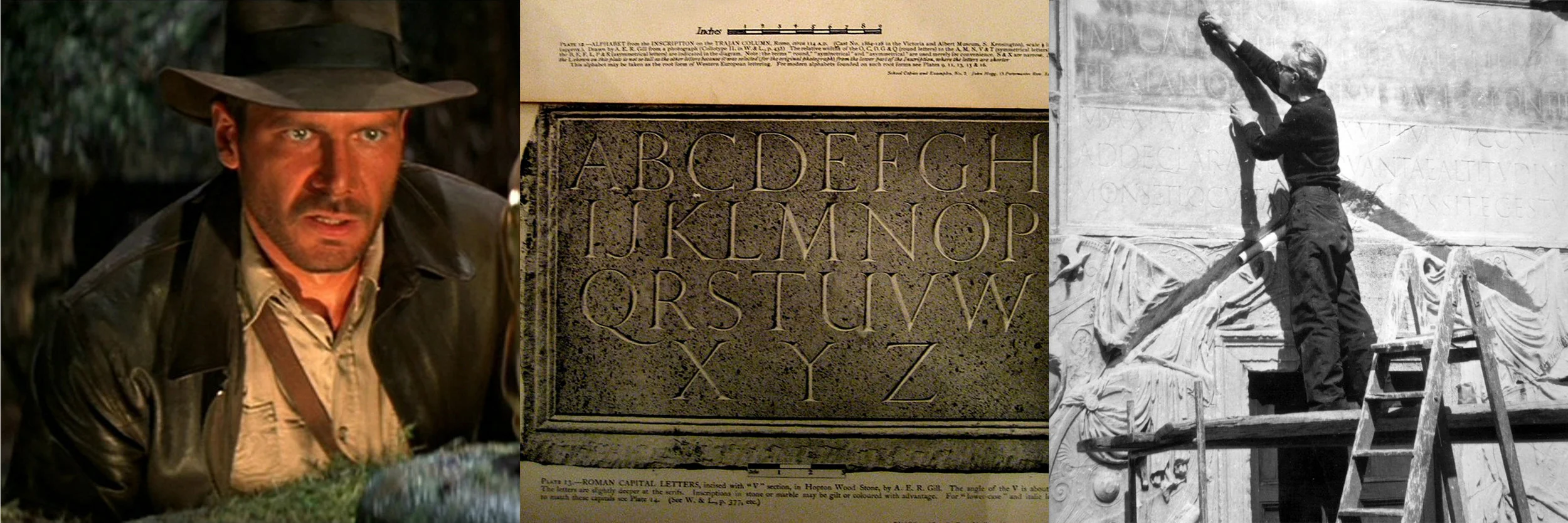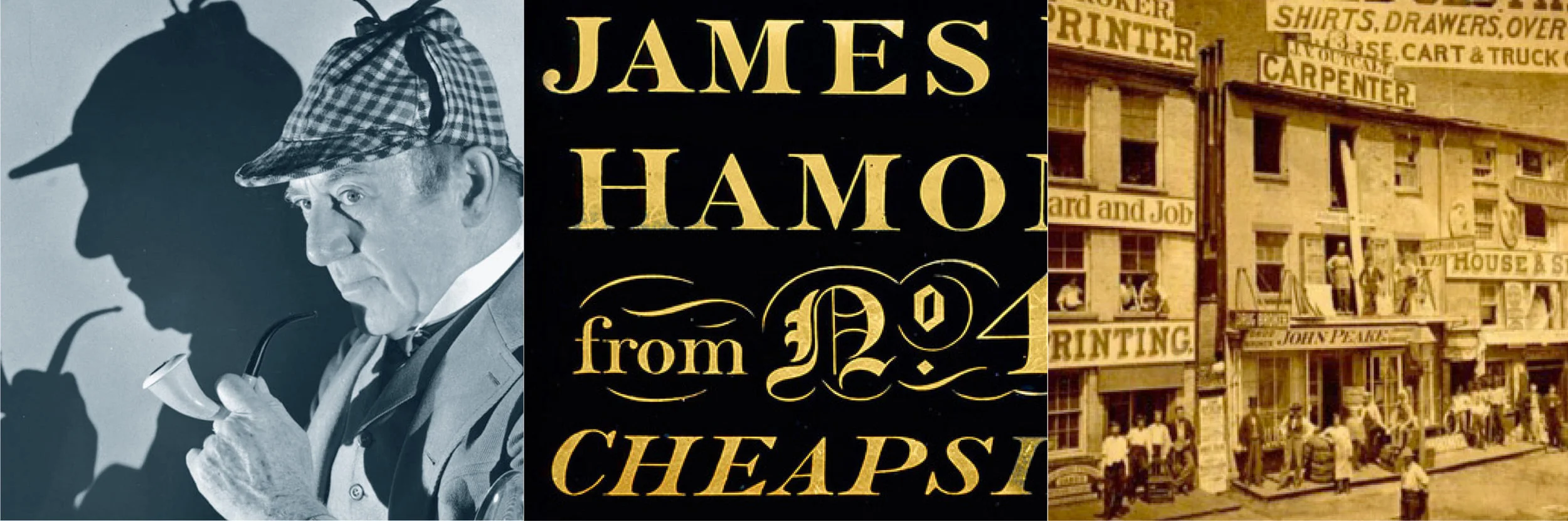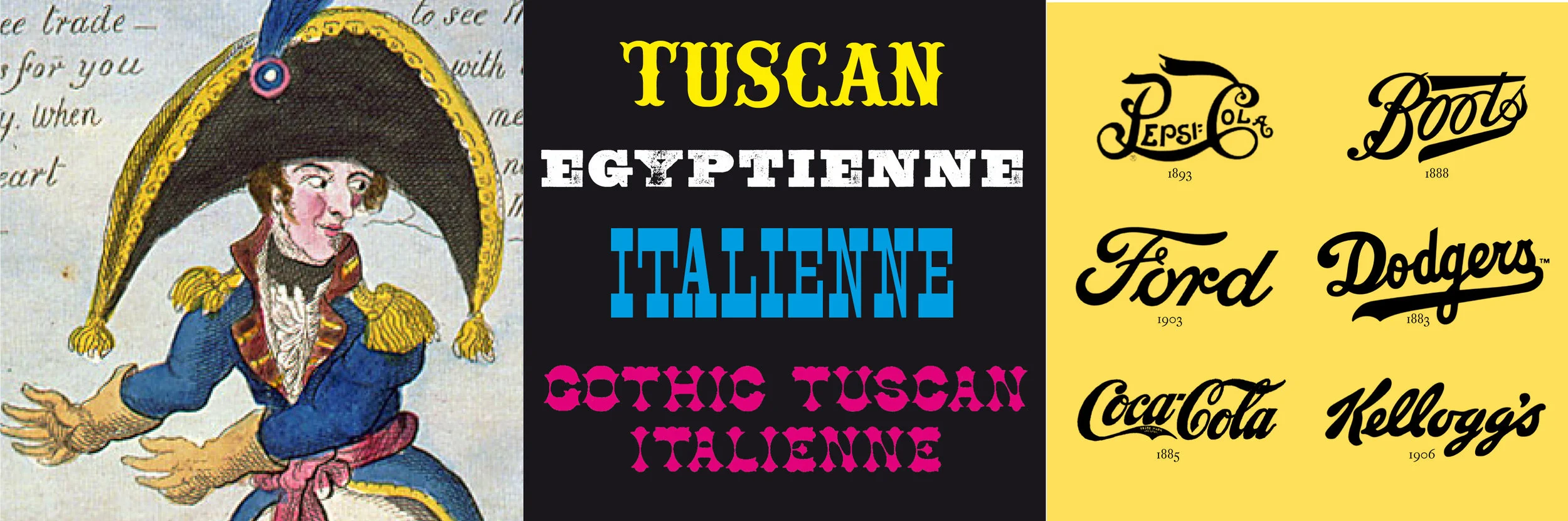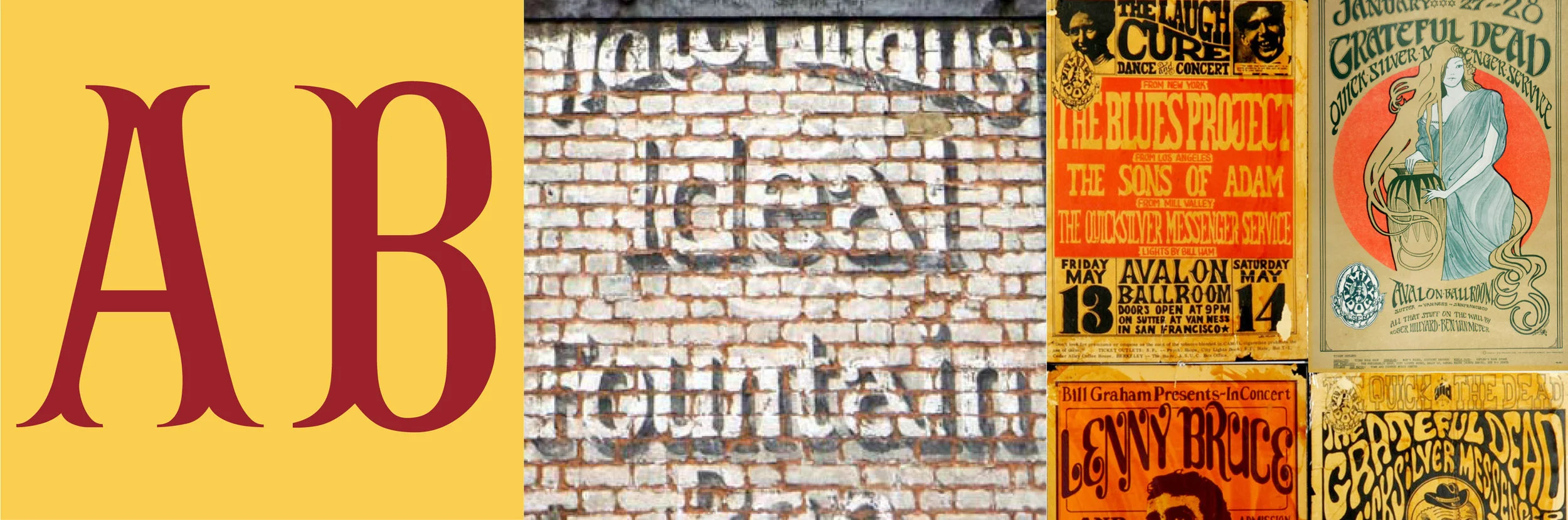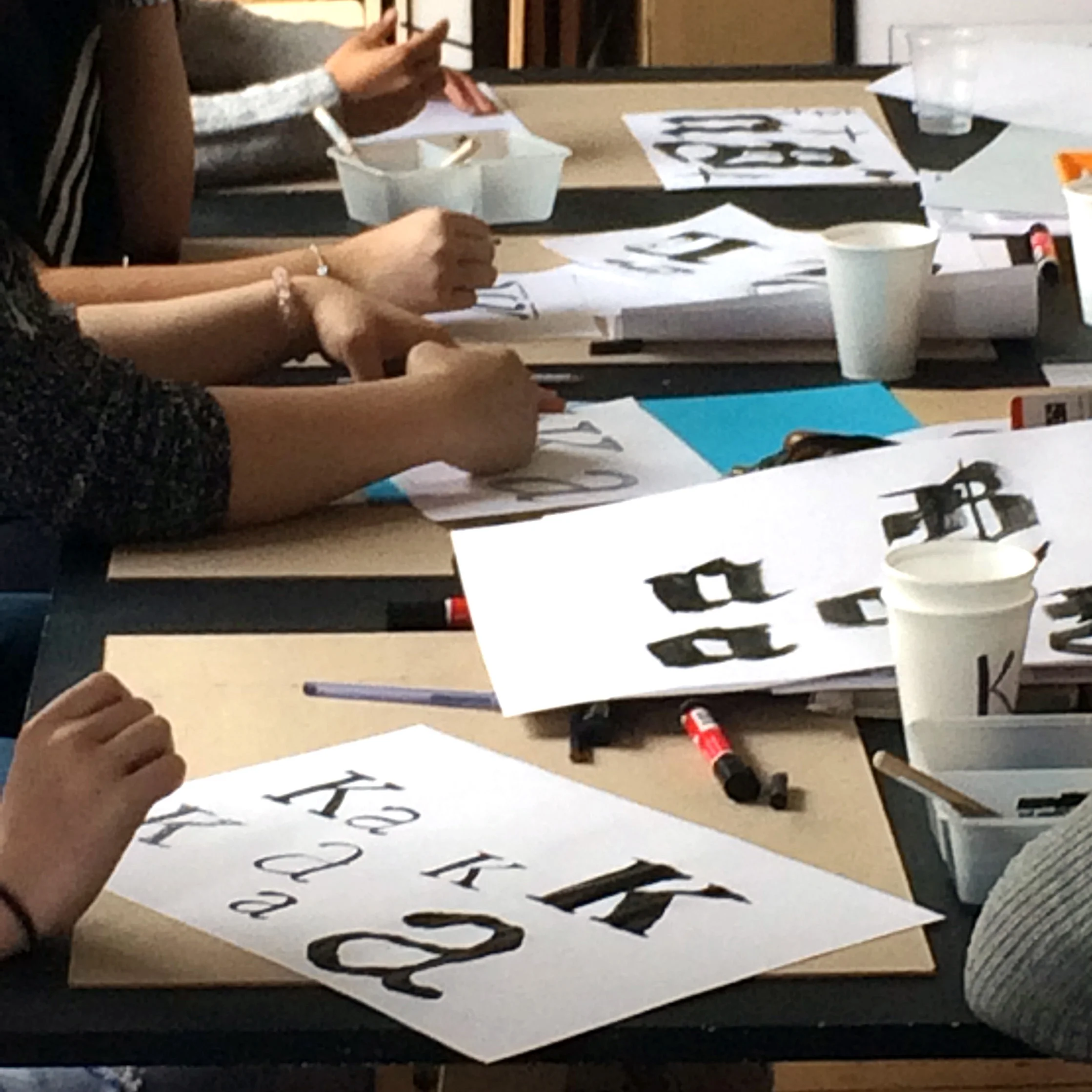
From brush strokes to typography
You love letterforms, you’re keen to broaden your vocabulary of lettering styles and would like to understand why different typefaces evoke specific associations. No prior experience or drawing skills are necessary.
Discover a new approach that unlocks your understanding of letterforms and demystifies the language used to describe them. Gain the confidence to go beyond your comfort zone and to use a wider range of typefaces as storytelling devices. You’ll learn from an author who has spoken about typography on television, radio and some of the biggest stages in the graphic design world. The most exciting thing you’ll discover is how much of an expert you already are.
This is a workshop for the creatively curious, which takes you on a hands-on tour through the history of letterforms as you discover how the sign writer’s brush has profoundly influenced the development of typefaces in Europe and North America.
This workshop with author and Type Tasting founder Sarah Hyndman takes you on a journey through time and letterforms with fast-paced sketching exercises throughout. Images, sound, scent and tasters will bring each era to life, making this a fun and enlightening discovery session. This workshop has been created exclusively for Better Letters.
Journey back to the source of the serif and discover the classic proportions that have echoed across the centuries.. Uncover the genuine English vernacular style, and find the evidence to prove that sans serifs appeared on buildings long before they were printed.
You’ll use a selection of mark-making tools including charcoal, pens, pencils and poster paints in your exploration of letterforms (you’re welcome to bring your favourite pens and brushes). This is not a sign writing technique workshop; but it is an ideal companion because it teaches you theory to complement the skill.
You will: Journey back to the source of the serif and discover the classic proportions that have echoed across the centuries; Uncover the genuine English vernacular style, and find the evidence to prove that sans serifs appeared on buildings long before they were printed; Unpick the idiosyncrasies of naming systems, and celebrate sign writers as the first branding designers — whose influence can still be seen in many of today’s logos; Find out how a quick and casual style left England and went on to travel the world; And spot the shapes of 19th Century counter-culture in fading ghostsigns.
Unpick the idiosyncrasies of naming systems, and celebrate sign writers as the first branding designers — whose influence can still be seen in many of today’s logos. Find out how a quick and casual style left England and went on to travel the world; and spot the shapes of fading ghostsigns in the counter-culture of the 1960s.